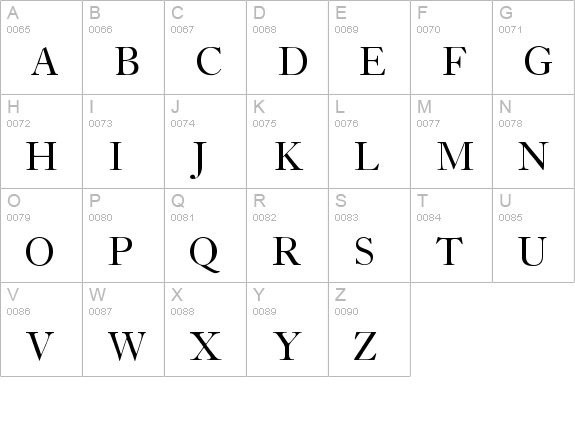
CaslonZL Font Details
CaslonZL is a classic and elegant serif font that exudes sophistication and timelessness. With its delicate curves and sharp serifs, this font is perfect for adding a touch of refinement to any design project. Its versatile design makes it suitable for a wide range of applications, from editorial layouts to branding materials. What sets CaslonZL apart is not only its aesthetic appeal but also its accessibility - it is available for free download at FontsMarket.com. This means that designers and creatives can easily incorporate this beautiful font into their work without any cost barriers. Whether you're working on a personal project or a professional assignment, CaslonZL is a fantastic choice that combines style, accessibility, and quality.